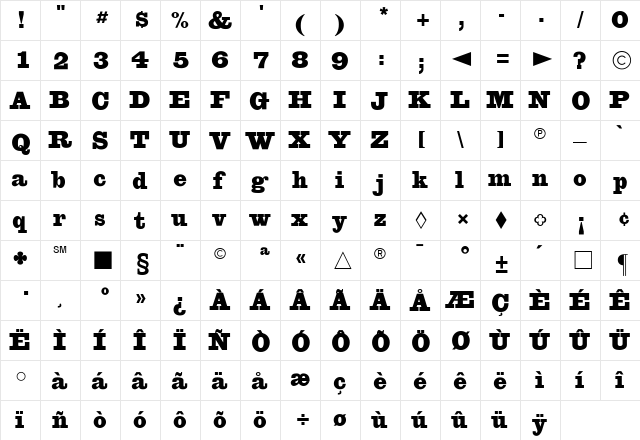
CgEgizianoBl Medium Font Preview
CgEgizianoBl Medium
Design Context for CgEgizianoBl Typeface
CgEgizianoBl is a composed and adaptable typeface that performs quietly and consistently across a wide range of design contexts.
Pro Tip: Use CgEgizianoBl in both headline and body roles to test its range before committing to a single application.